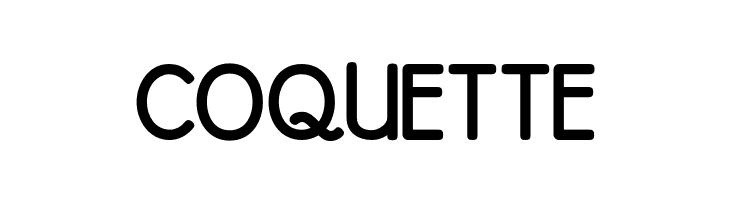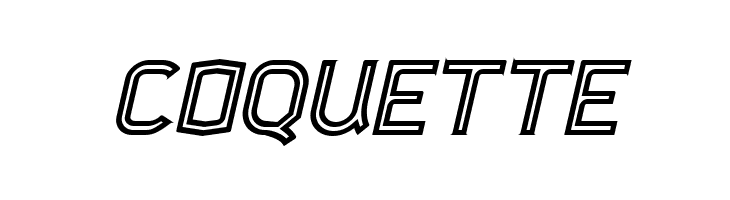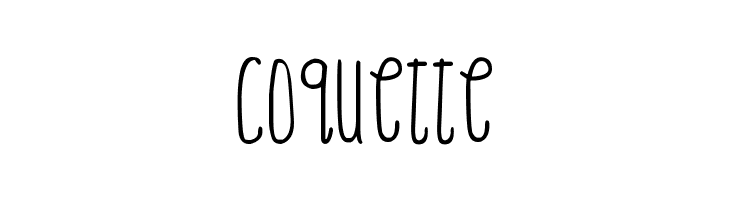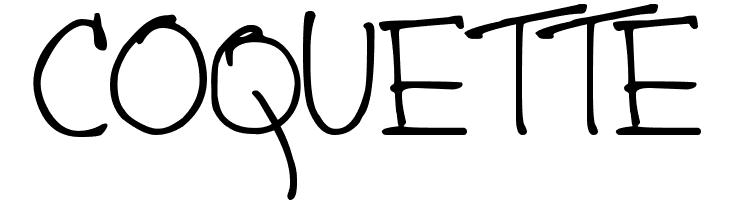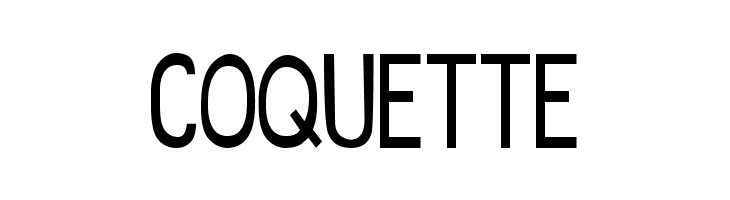
A bold, geometric font with Art Deco influences and uniform strokes.
Elegant cursive script with a handwritten style.
A bold, decorative font with characters partially submerged in black shapes, creating a dynamic and modern look.
A bold, angular, and futuristic font with a geometric structure.
A bold, italic font with a futuristic and dynamic design.
A flowing, elegant handwritten script font with a personal touch.
A bold, playful font with a modern and assertive style.
A playful, casual handwritten font with an organic and friendly appearance.
A bold, italicized script font with interconnected letters and a flowing style.
A bold, brush-style script font with a lively and artistic flair.
A playful, hand-drawn set of summer-themed symbols and shapes.
A lively and expressive handwritten font with fluid strokes and dynamic style.
A whimsical and elegant script font with flowing, interconnected letters and decorative swirls.
A playful and whimsical script font with a handwritten style.
A bold, handwritten font with a playful and friendly style.
A bold, distressed font with a vintage, rugged appearance.
A bold, distressed font with a textured, weathered appearance.
A bold, outlined font with a playful and cartoonish style.
An elegant, flowing script font with a natural handwriting style.
A bold, playful handwritten font with dynamic strokes.
A bold, playful font with a retro-modern twist and rounded, irregular characters.
A bold, three-dimensional font with a vintage, retro flair.
A playful, bold font with rounded, thick strokes and a whimsical style.
A bold, playful font with exaggerated curves and a whimsical style.
A bold, rounded typeface with a playful and whimsical style.
A bold, playful font with thick, rounded characters and a bubbly appearance.
A bold, rounded font with a playful and whimsical style.
A bold, rounded font with a playful and bubbly style.
A bold, pixelated font with a retro video game aesthetic.
A playful, bold font with rounded, bubble-like characters.
Bold, playful, and bubbly font.
A playful, bold font with rounded, hand-drawn characters.